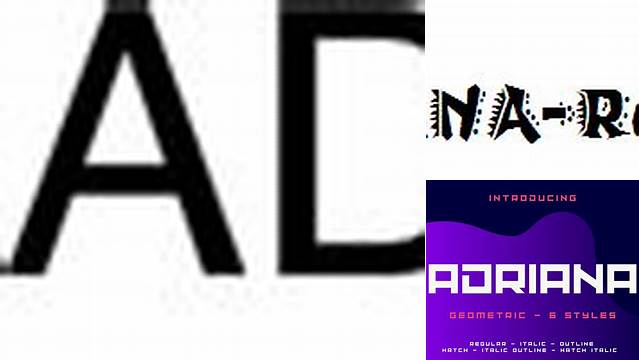
Adriana Regular Font: Free Download & Guide
Adriana Regular Font: A Closer Look
Alright, so what exactly is the Adriana Regular font? In a nutshell, it's a clean, modern typeface that exudes both elegance and readability. It's a versatile font, meaning it can be used in a wide variety of contexts, from headlines and titles to body text and even branding materials. Its simple yet stylish design makes it a perfect choice for those seeking a contemporary look. The Adriana Regular font is often praised for its clarity, ensuring that your message is communicated effectively across different mediums. This font has a well-balanced design, with carefully crafted letterforms that provide a pleasant reading experience. It's not overly stylized, making it suitable for both formal and informal applications. Whether you're designing a website, creating marketing materials, or simply need a stylish font for personal projects, Adriana Regular is a solid contender. Its straightforward design also ensures it pairs well with other fonts, giving you endless possibilities for your designs. Imagine it for your personal blog, website, or maybe a wedding invitation? It will bring an unforgettable touch. This font is more than just a set of letters; it's a tool that can transform the way your message is perceived. From the moment you see it, you will understand its capabilities.
Characteristics and Design Features
Let's dive a little deeper into what makes the Adriana Regular font so special. The design is characterized by its clean lines and balanced proportions. The letterforms are thoughtfully designed, ensuring they're easy on the eyes, making your content easily readable. Adriana Regular strikes a perfect balance between being modern and classic. It isn't a trendy font that will quickly become outdated. It has a timeless appeal that will keep your designs looking fresh for years to come. The font's versatility is another major plus. It works well in both digital and print applications, so you're not limited to certain types of projects. Its legibility is excellent, even at smaller sizes, which is crucial for body text or when used on mobile devices. The font includes a complete set of characters, including uppercase and lowercase letters, numerals, and punctuation marks. This means you have everything you need to create compelling and complete content. This font also includes a wide range of special characters that add to its design possibilities. The clean design of this font doesn't overwhelm the viewer and allows your message to take center stage. The careful attention to detail in the font's creation ensures it looks great in all contexts.
Utilizing the Adriana Regular Font in Your Designs
Now that you've got the Adriana Regular font installed, the fun part begins: incorporating it into your designs! This font's versatility makes it suitable for a wide range of projects. Start by experimenting with the font in different contexts to see how it best suits your needs. For headings, try using Adriana Regular at a larger size. The clean and modern appearance can make your headlines really stand out. When using it for body text, keep the font size at a readable level. The clarity of Adriana Regular ensures your content is easy to read. Experiment with different color schemes to see what complements the font best. Adriana Regular works well with both bright and muted colors. This will help to create the right look and feel for your project. Make sure that there is good contrast between your text and the background. This will make your text more readable. Experimenting with different design tools, such as Adobe Photoshop, Illustrator, or Canva, can give you a better understanding of the font's capabilities. The font is available and compatible with many design tools. When designing a website or a digital document, ensure the font is web-safe and that it displays consistently across various devices. This adds a nice touch. The Adriana Regular font's adaptability helps you create eye-catching designs.
Best Practices for Font Usage
To make the most of the Adriana Regular font in your projects, you should follow some best practices. Choose the appropriate font size based on the content. Headlines and titles should generally be larger than body text to create a visual hierarchy. Select the appropriate font weight for the text. Adriana Regular usually comes in several weights, from regular to bold. Use different weights to emphasize important parts of your content. Pay attention to the line spacing and letter spacing (kerning) to improve readability. These settings can significantly improve the look and feel of your design. Always maintain a good contrast between your text and the background. High contrast will enhance readability and make your content more accessible. Avoid using too many different fonts in one design, as this can create a messy or cluttered look. Stick to a limited number of fonts to maintain consistency. Make sure your font is consistent across different devices. Test your designs on various screens to ensure your content looks great no matter where it's viewed. When in doubt, keep it simple. Adriana Regular is a versatile font, and sometimes, less is more. By following these guidelines, you can use the Adriana Regular font to create visually appealing and easy-to-read content.
Adriana Regular Font in Branding and Marketing
If you're looking for a font that can make your brand stand out, the Adriana Regular font might be the perfect choice. Its modern, clean design is ideal for creating a professional and memorable brand identity. In branding, the font is used in various elements, such as logos, website design, and marketing materials. When creating a logo, the font's simplicity can make it stand out while remaining sophisticated. Its versatility means it can be adapted to fit a variety of brand styles. Using it on your website can create a cohesive brand image. Ensure the font is used consistently across all your online platforms. Include it on your social media graphics and other digital content to create a unified brand presence. The font is a good option for print marketing materials, such as brochures, business cards, and flyers. Its readability makes it suitable for both headlines and body text, making it easier to get your message across. Consider using the font in email marketing templates, adding a consistent brand look to all your communications. By using the Adriana Regular font, you're creating a visual identity that is both stylish and professional.
Conclusion: Embracing the Adriana Regular Font
So there you have it, folks! The Adriana Regular font is a fantastic choice for those seeking a clean, modern, and versatile typeface. With its clean design, ease of use, and extensive range of uses, this font is a great tool in your design. From the Adriana Regular OTF font free download to its versatile applications in web design and branding, the Adriana Regular font is a great choice for many designers. Whether you're a seasoned designer or a beginner, this font will help make your designs look better. So, go ahead and download the font, experiment with it, and start creating visually stunning content. Happy designing, and may your projects be filled with the beauty and clarity of the Adriana Regular font! Happy designing, and good luck!